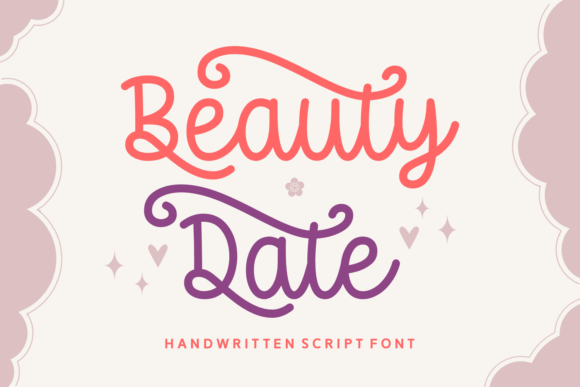
Beauty Date Font: The Ultimate Choice for Romantic and Playful Designs
Are you looking for a font that exudes elegance, romance, and playfulness? Look no further than the Beauty Date Font. This charming handwritten script font is bursting with whimsical swashes, rounded letterforms, and a delightful mix of curves, making it the perfect choice for Valentine’s designs, greeting cards, branding, and social media graphics.
What Makes Beauty Date Font So Special?
Beauty Date Font is a unique and captivating font that brings a sweet, flirty vibe to any creative project. Its playful elegance and romantic flair make it an ideal choice for designers who want to add a touch of whimsy and sophistication to their work. Whether you’re creating a Valentine’s Day card, a wedding invitation, or a social media graphic, Beauty Date Font is sure to impress.
Key Features of Beauty Date Font
• Whimsical Swashes: Beauty Date Font features whimsical swashes that add a touch of elegance and sophistication to your designs.
• Rounded Letterforms: The font’s rounded letterforms give it a playful and friendly feel, making it perfect for designs that require a personal touch.
• Delightful Mix of Curves: The font’s curves are carefully crafted to create a sense of movement and fluidity, adding a dynamic touch to your designs.
• Handwritten Script: Beauty Date Font is a handwritten script font, giving it a personal and intimate feel that’s perfect for designs that require a human touch.
Perfect for Valentine’s Designs
Valentine’s Day is just around the corner, and Beauty Date Font is the perfect choice for your Valentine’s designs. Whether you’re creating a romantic card, a sweet treat box, or a social media graphic, this font is sure to capture the essence of the holiday. Its playful elegance and romantic flair make it an ideal choice for designers who want to create a lasting impression.
Ideal for Greeting Cards
Greeting cards are a great way to connect with loved ones, and Beauty Date Font is the perfect choice for creating beautiful and heartfelt cards. Whether you’re creating a birthday card, a get-well card, or a thank-you card, this font is sure to add a touch of elegance and sophistication to your design.
Branding and Social Media Graphics
Beauty Date Font is not just limited to Valentine’s designs and greeting cards. It’s also an excellent choice for branding and social media graphics. Its playful elegance and romantic flair make it an ideal choice for designers who want to create a lasting impression on their audience. Whether you’re creating a logo, a social media graphic, or a website header, Beauty Date Font is sure to capture the attention of your audience.
Tips for Using Beauty Date Font
• Pair it with a bold font: Beauty Date Font is a script font, so it’s best paired with a bold font to create contrast and visual interest.
• Use it for headings: Beauty Date Font is perfect for headings and titles, so use it to add a touch of elegance and sophistication to your design.
• Experiment with colors: Beauty Date Font looks great in a variety of colors, so experiment with different colors to find the one that works best for your design.
• Add swashes and flourishes: Beauty Date Font features whimsical swashes, so don’t be afraid to add them to your design to create a more elegant and sophisticated look.
Beauty Date Font is a charming handwritten script font that’s perfect for designers who want to add a touch of elegance, romance, and playfulness to their work. Its whimsical swashes, rounded letterforms, and delightful mix of curves make it an ideal choice for Valentine’s designs, greeting cards, branding, and social media graphics. With its sweet, flirty vibe and playful elegance, Beauty Date Font is sure to capture the attention of your audience and leave a lasting impression.
Beauty Date Font: The Perfect Choice for Your Next Design Project
Whether you’re a professional designer or a DIY enthusiast, Beauty Date Font is the perfect choice for your next design project. Its unique and captivating design makes it an excellent addition to any design project, and its versatility ensures that it can be used in a variety of contexts. So why wait? Download Beauty Date Font today and start creating beautiful and elegant designs that capture the essence of romance and playfulness.